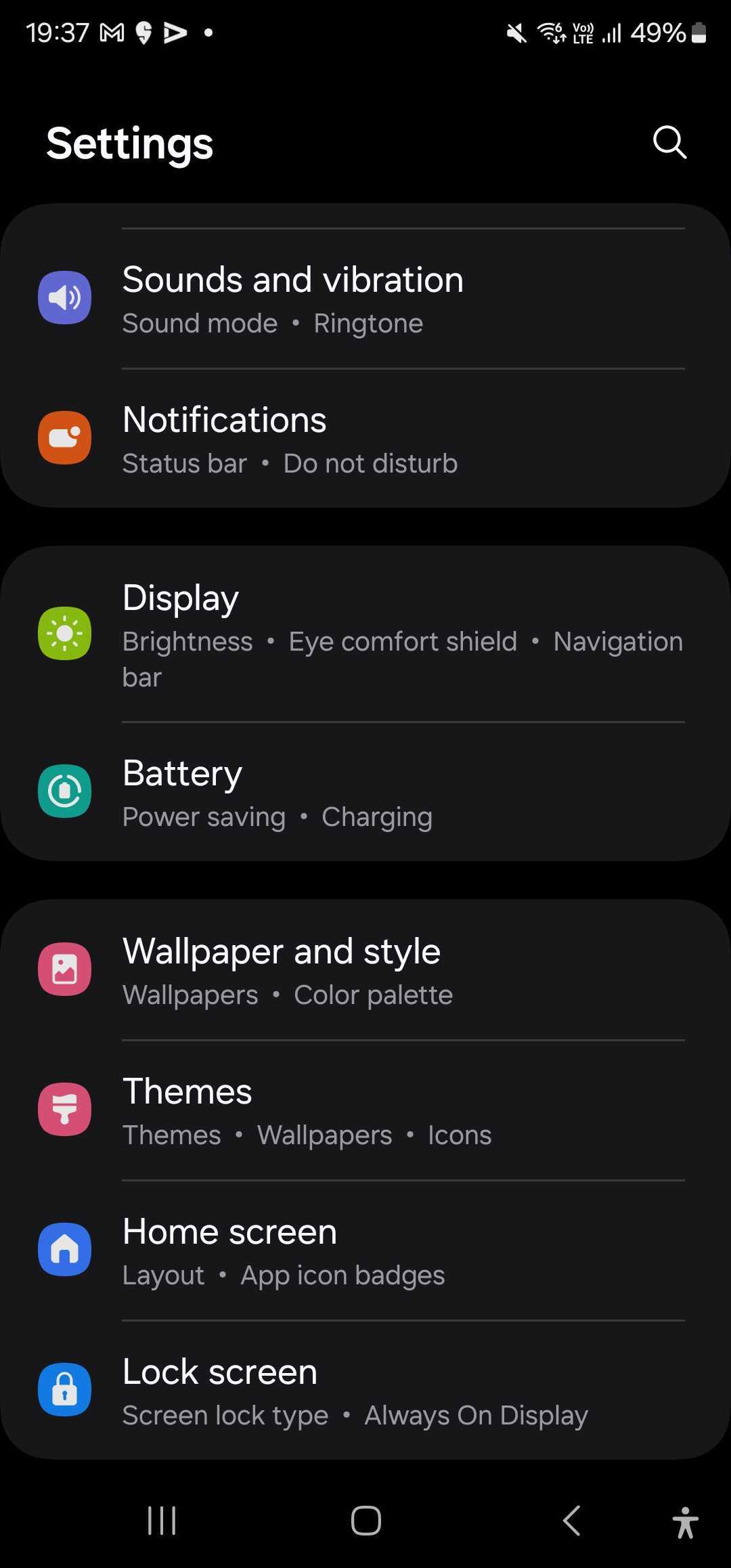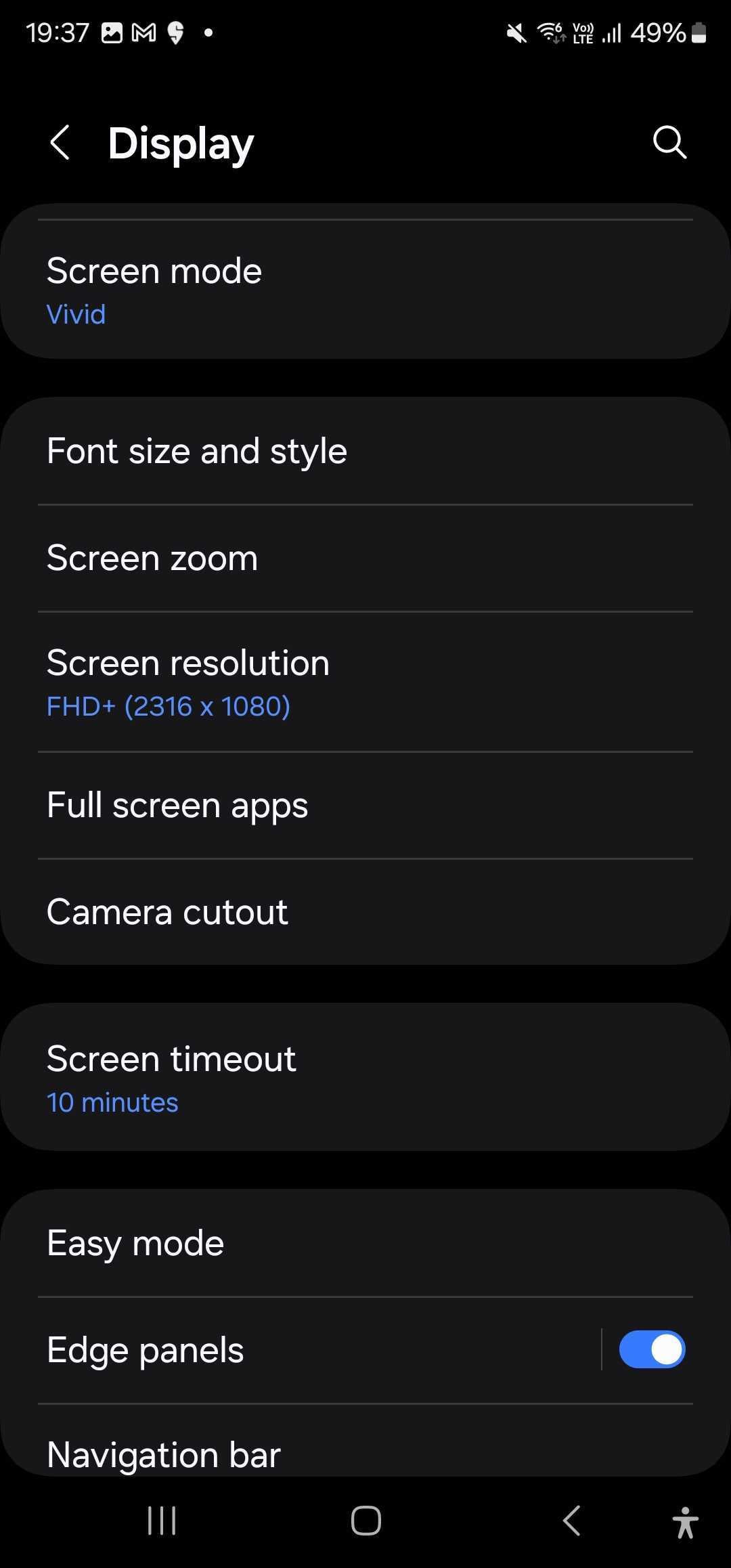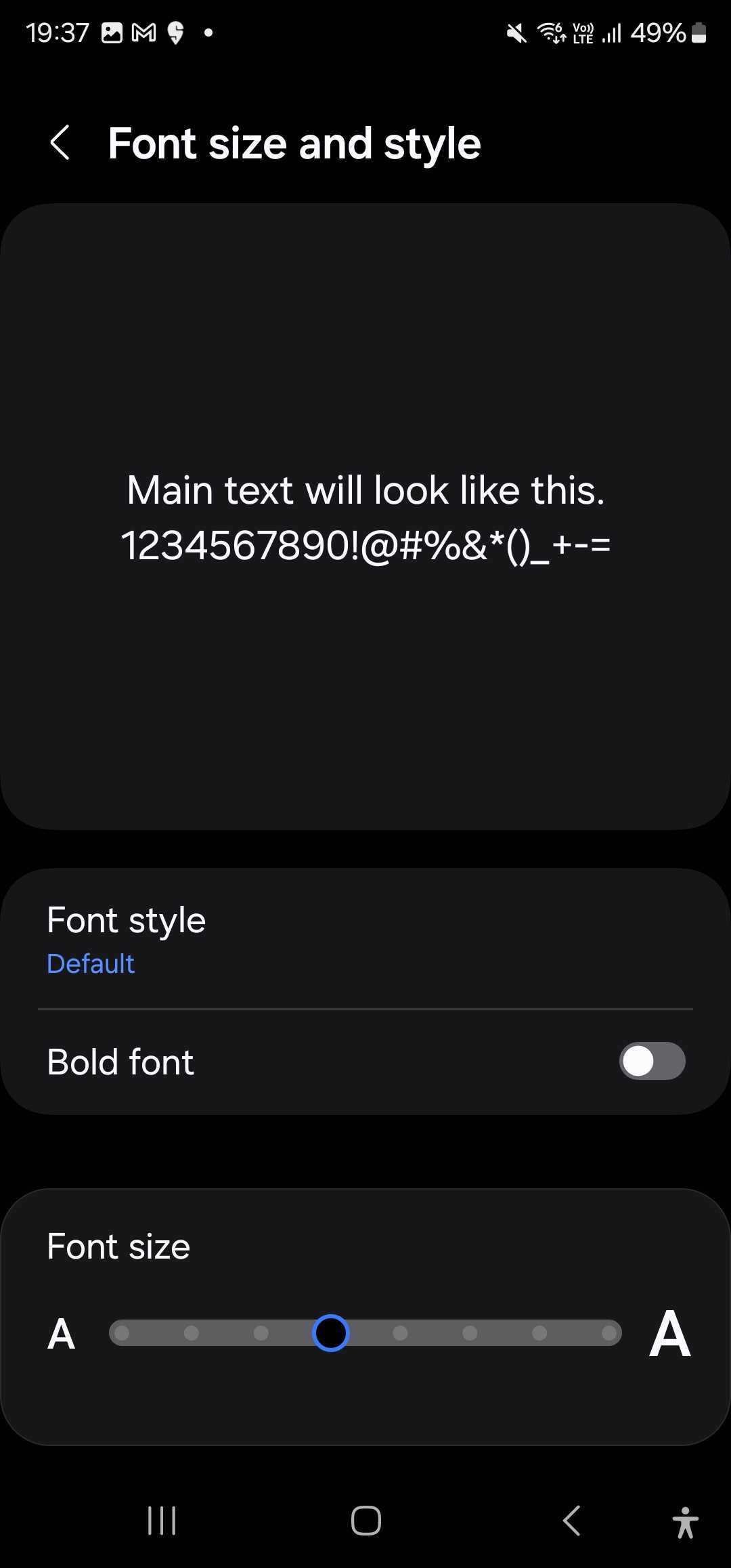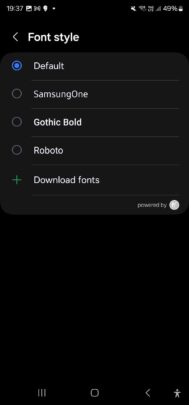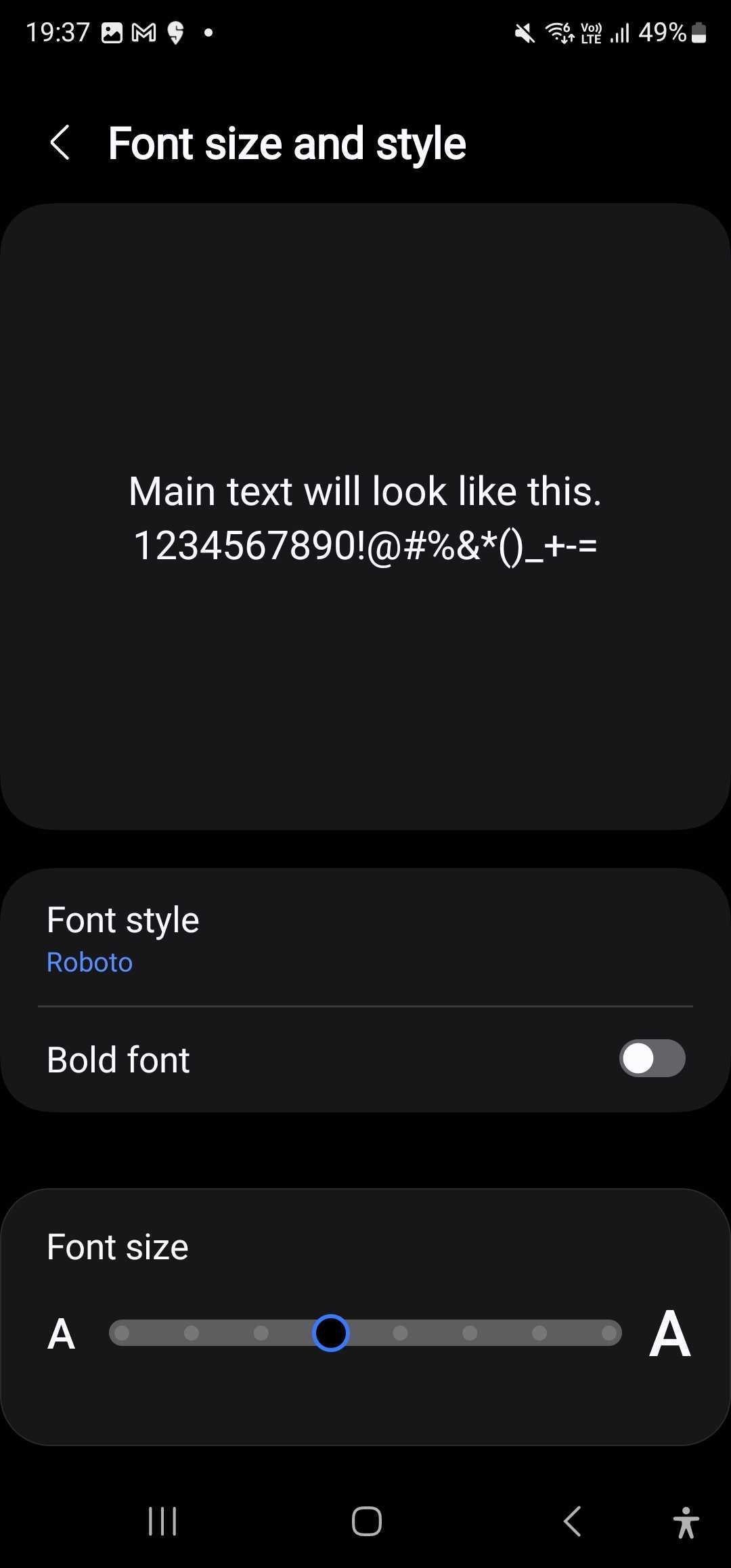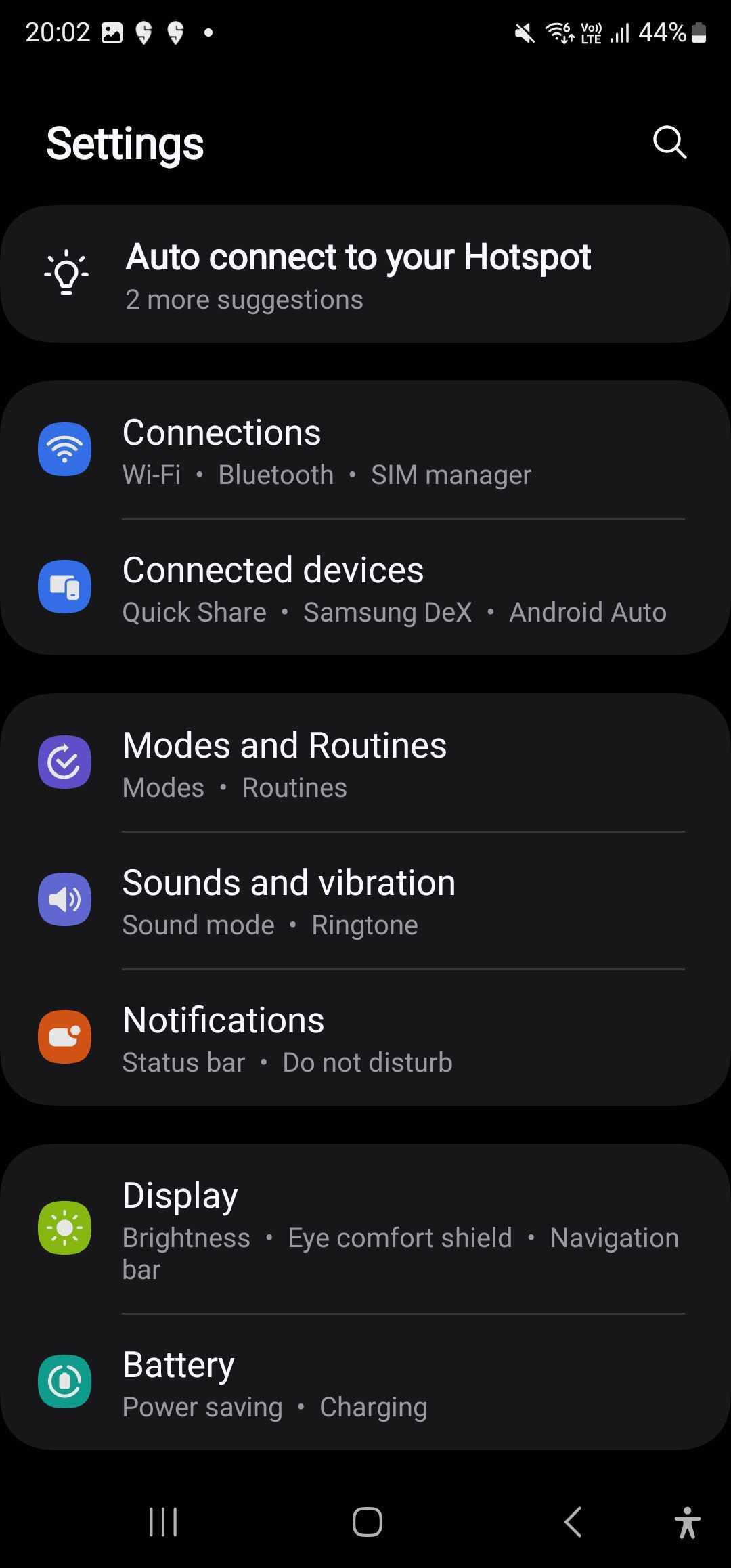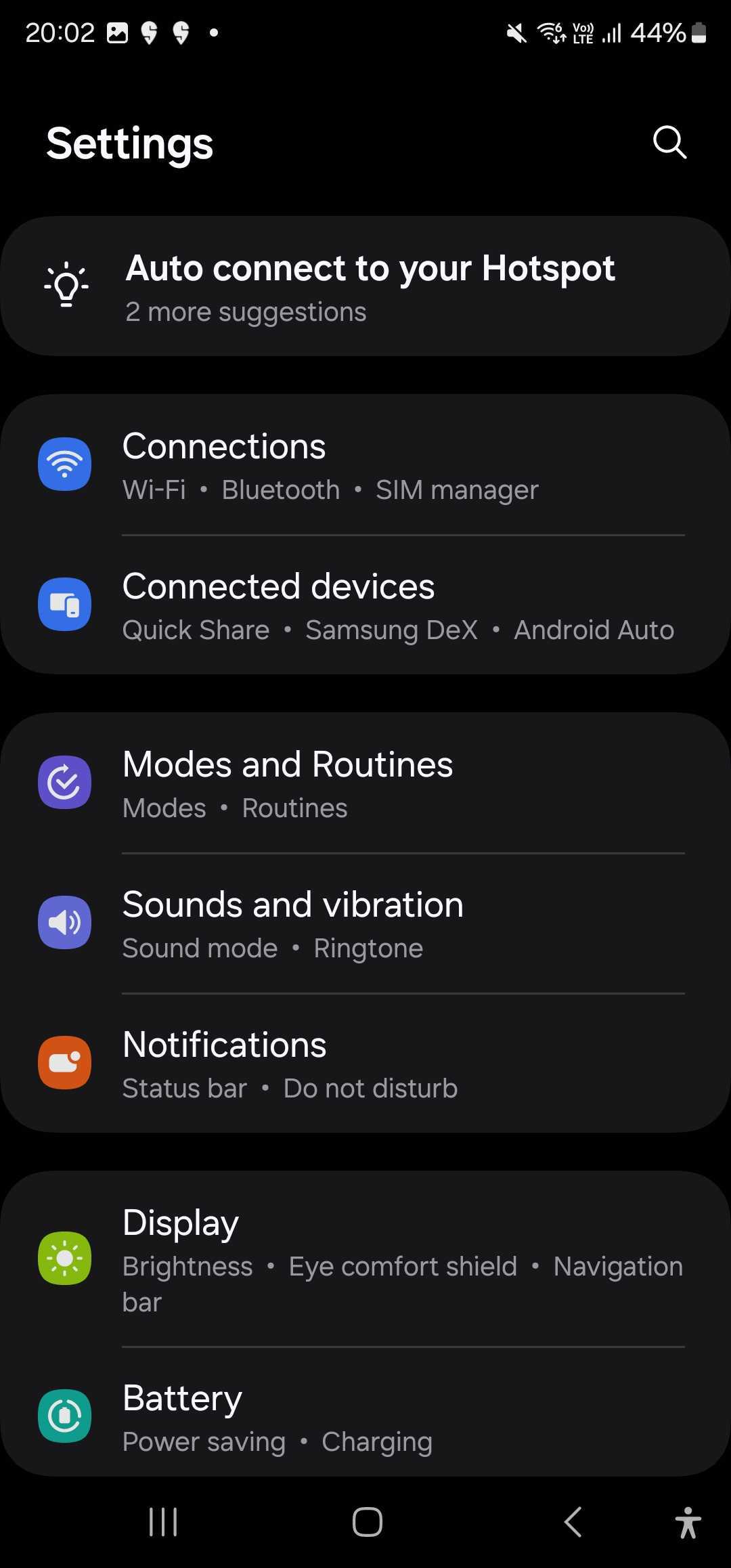
However, if you are bothered by this change in One UI 6.0, here's everything you need to know to go back to how it was in One UI 5.1.
The previous default font in One UI 5.1 and earlier One UI versions wasn't “SamsungOne,” even though that's probably what most users naturally expect.
SamsungOne was indeed an option and still is in One UI 6.0, but the default typeface in One UI 5.1 was labeled “Default,” which doesn't help to identify it.
The font's actual name is “Roboto.” And now that the “Default” label in One UI 6.0 has been taken off Roboto to describe One UI Sans instead, you can find Roboto as an extra option, labeled appropriately.
For context, below is a side-by-side comparison between the Roboto and One UI Sans fonts. Changes are minimal, and you'd be hard-pressed to spot any differences at a glance. The gist of it is that letters and numbers appear to be slightly rounder and wider in Samsung's new One UI Sans typeface (right) compared to Roboto (left).